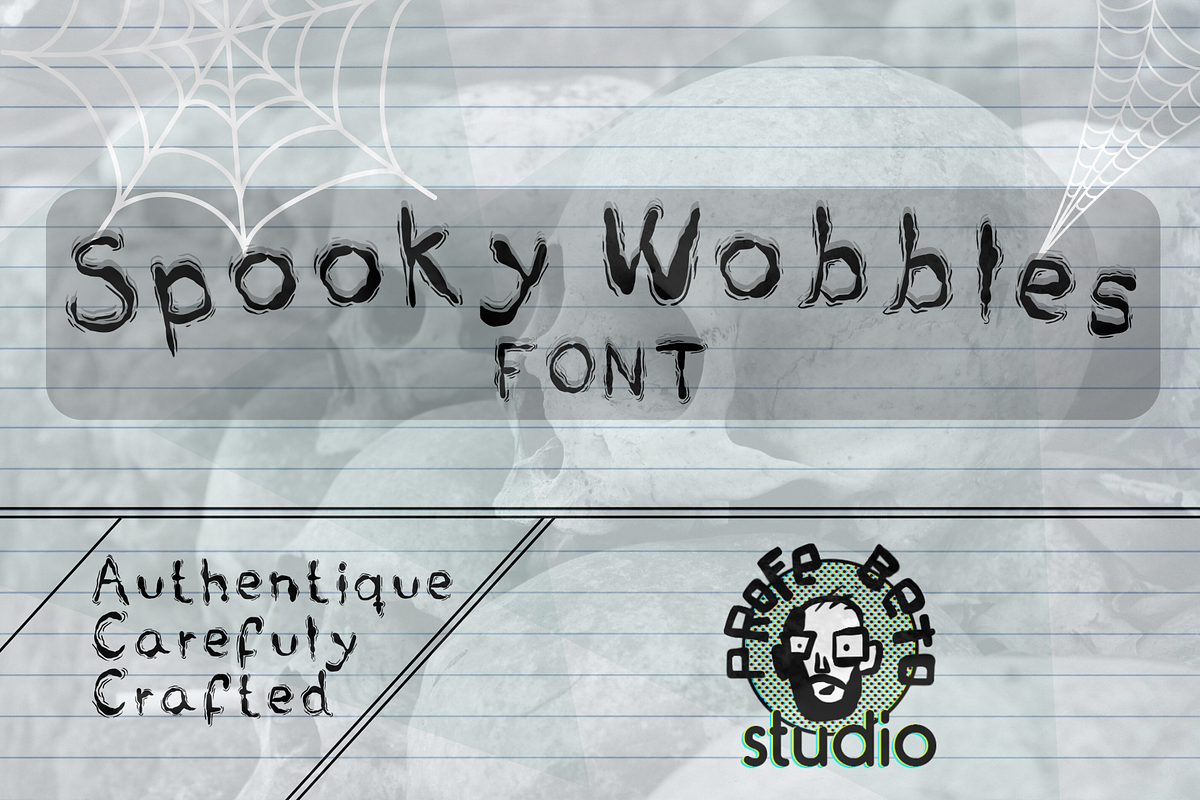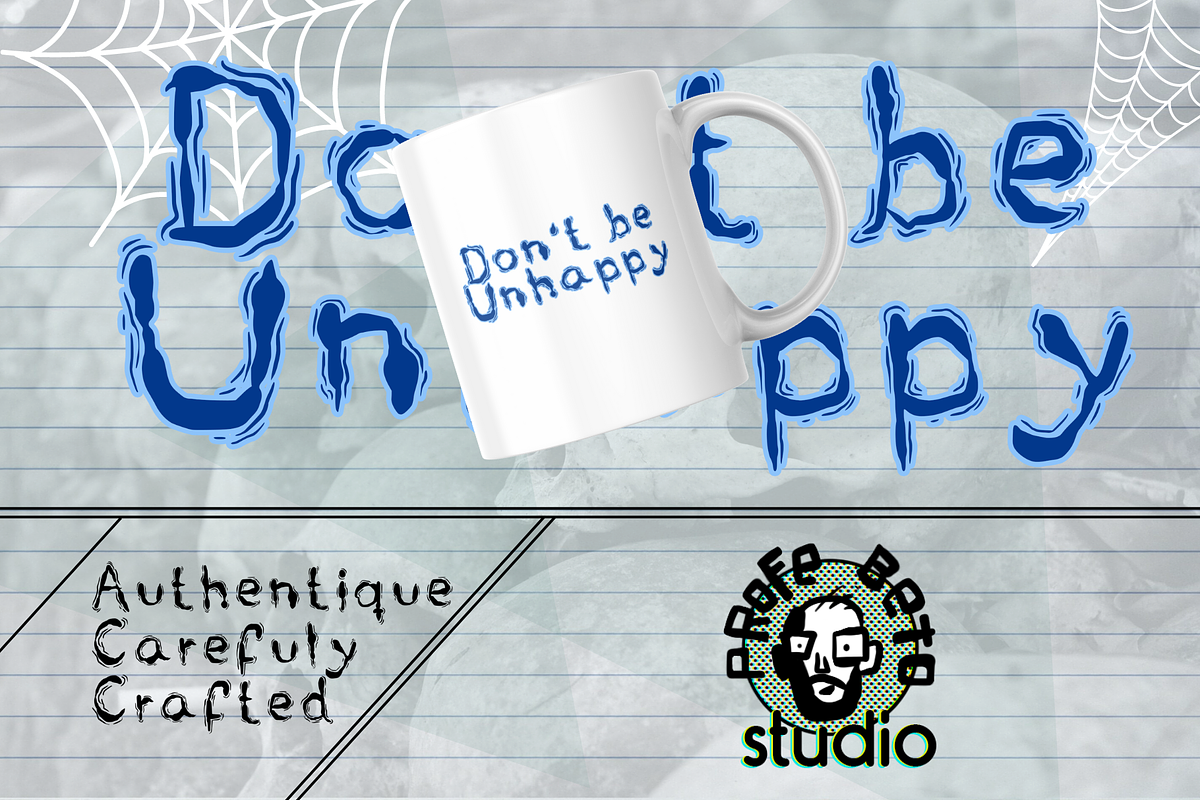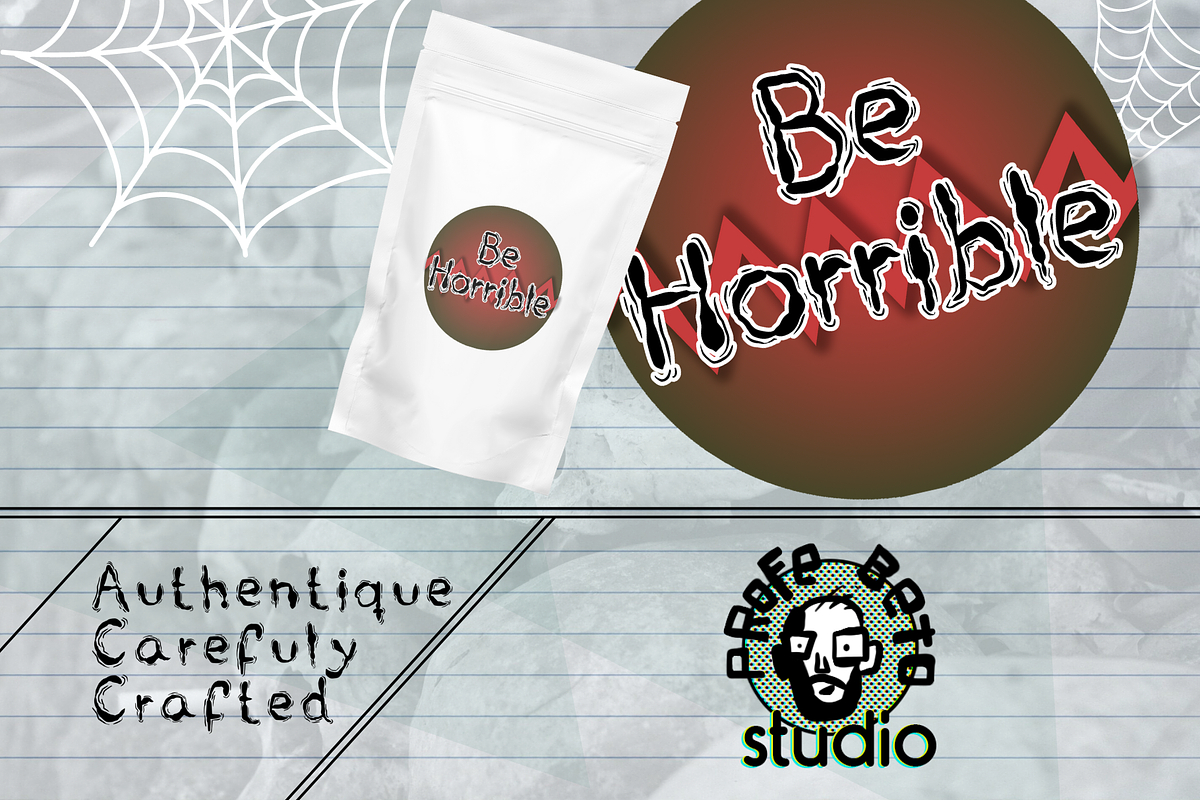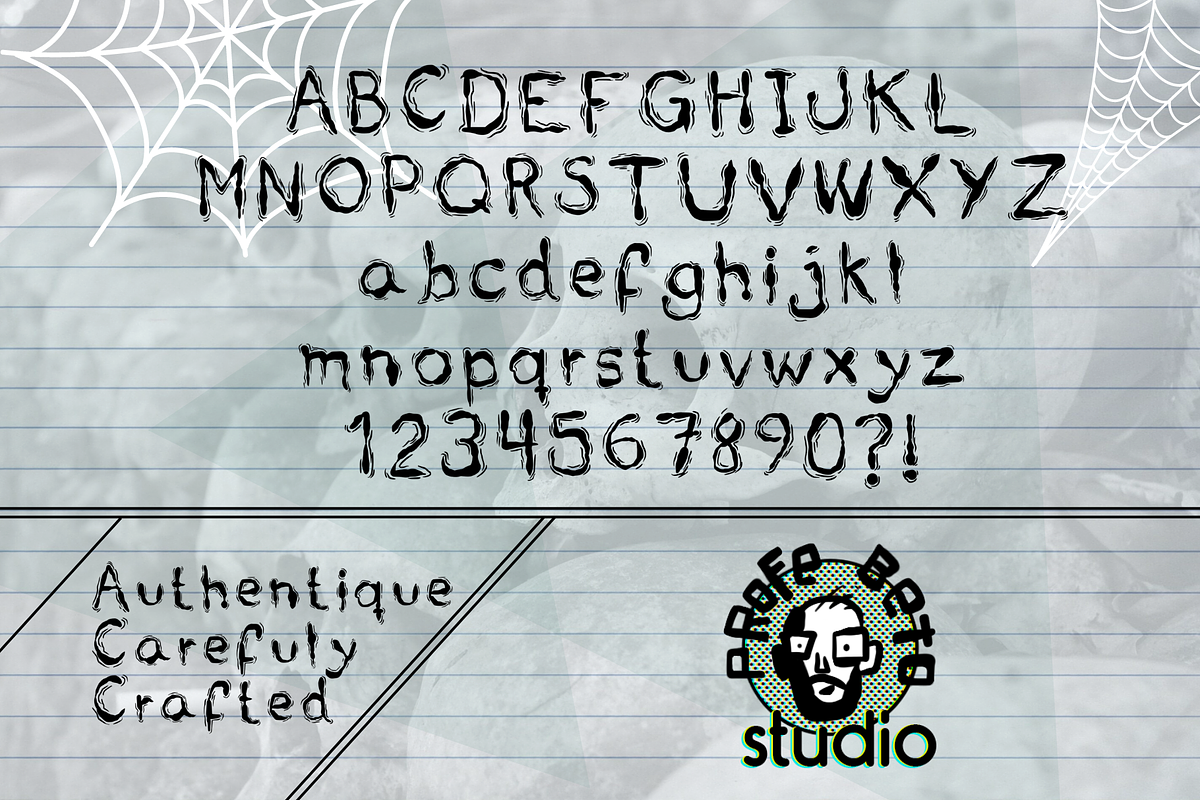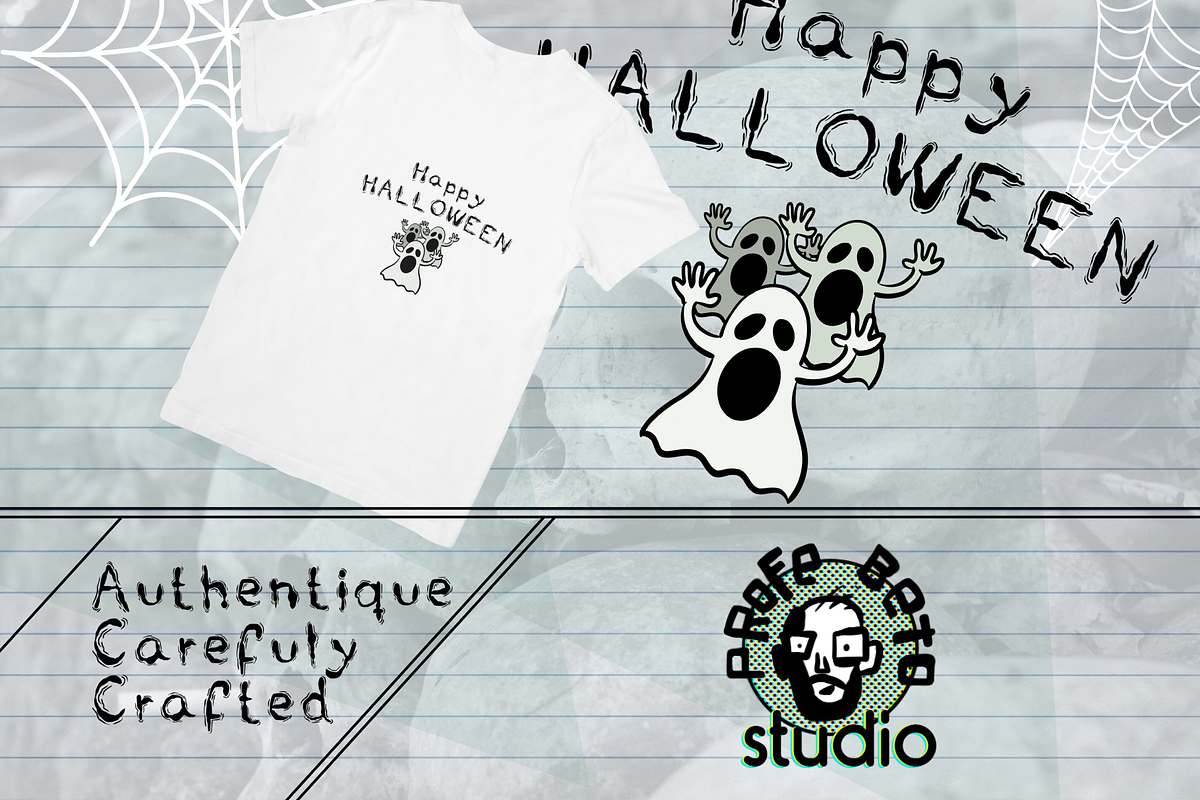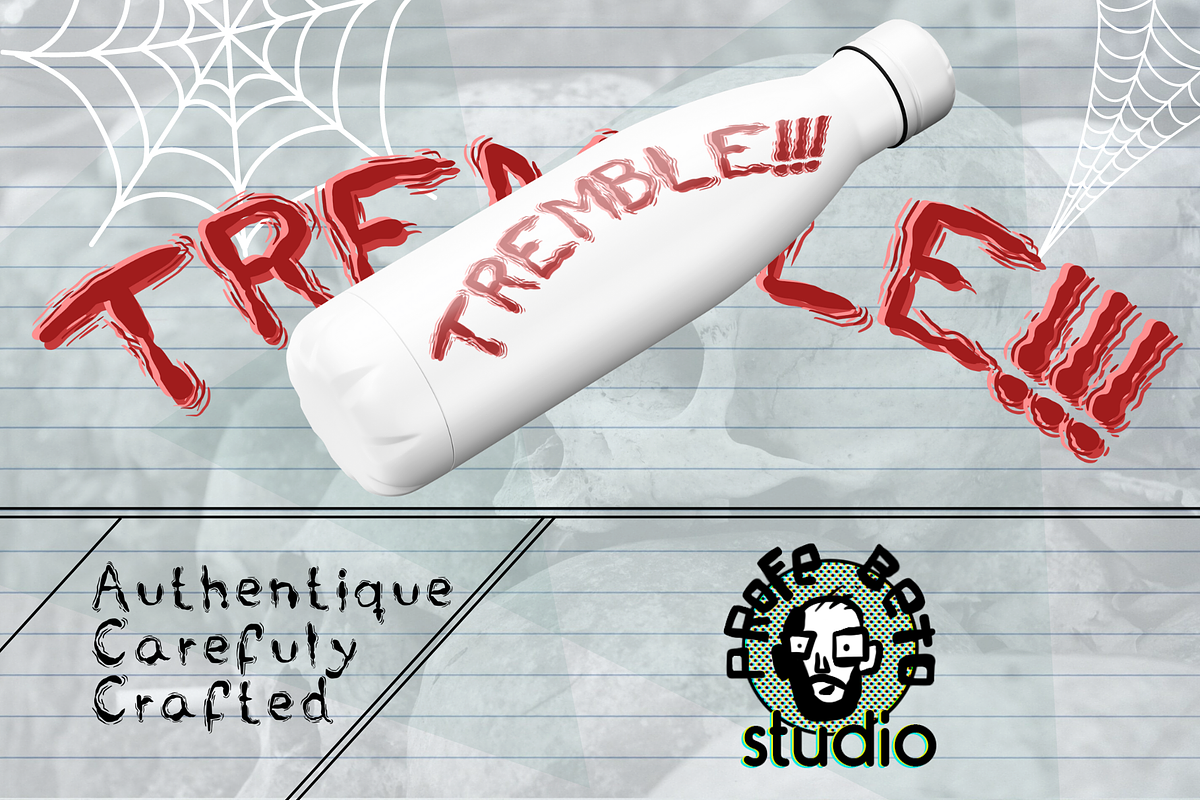
Spooky Wobbles/Fun Font for kids
Introduce young readers to the joy of reading with our Handmade Kid-Friendly Font! Perfect for children, this clear and easy-to-read font is ideal for vibrant, colorful signage and a wide range of children's products. Available in a versatile bundle, this font is designed to captivate and educate, making it perfect for enhancing any project aimed at young audiences.
Handmade Kid-Friendly Font:
Our font features playful, hand-drawn characters that are easy for children to read, making it perfect for educational materials, storybooks, and colorful signs. Get ready to tremble with excitement at its spooky, whimsical charm!
Encourage literacy and cognitive development with this fun and engaging font. Perfect for classroom activities, homeschooling, or at-home learning.
High-Quality Design:
Crafted with attention to detail, this font features charming, playful characters that will delight and engage young learners. It's spooky but in the most fun way!
Versatile Usage:
Ideal for use in classrooms, homeschooling environments, or as a fun at-home activity. This font is great for sparking creativity and enhancing literacy. Perfect for Halloween projects, adding a fun scare to your designs!
Bring the joy of reading to your little ones with our Handmade Kid-Friendly Font, perfect for sparking curiosity and enhancing educational development. Whether it's Halloween or everyday fun, this font is sure to thrill!